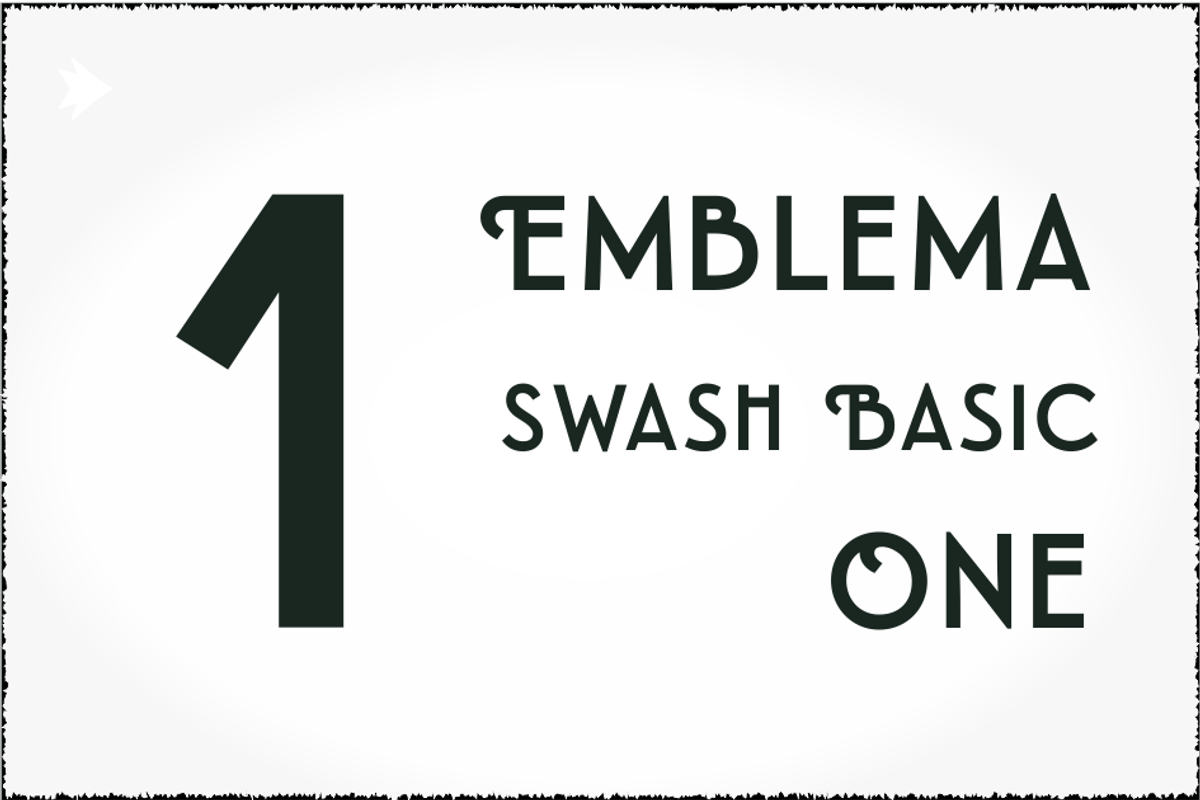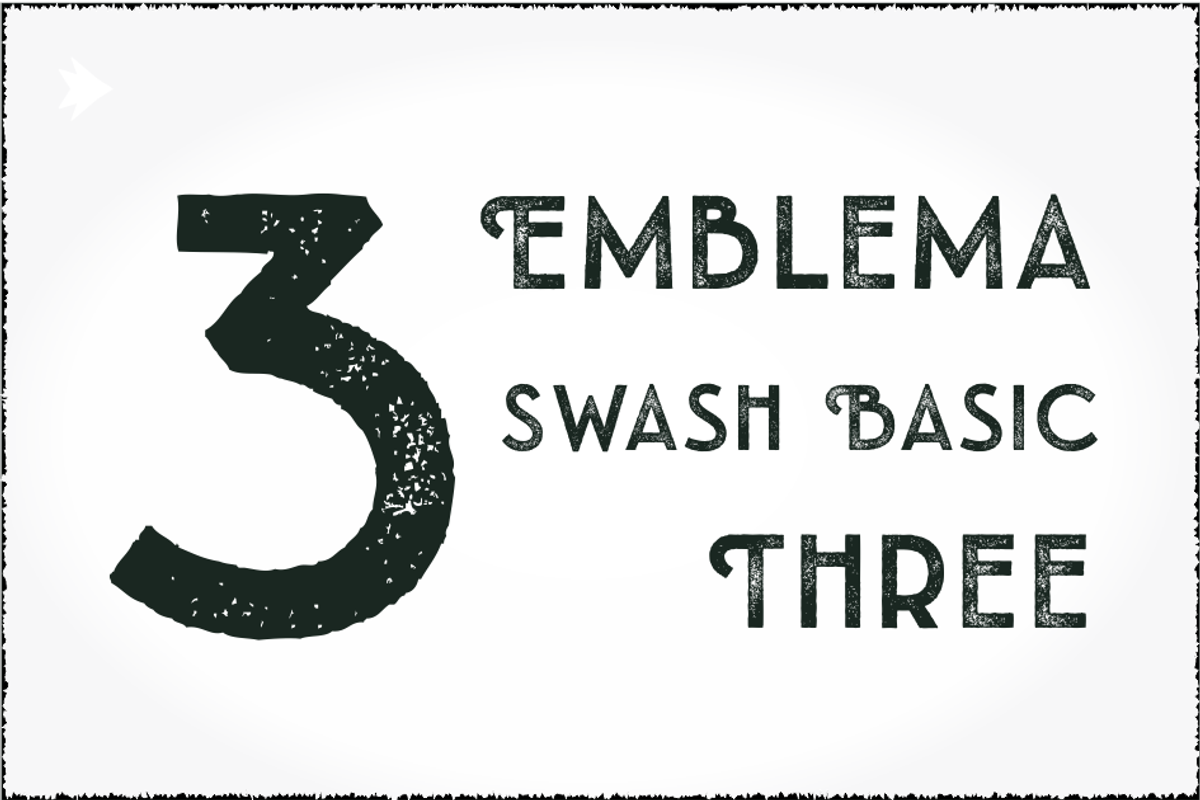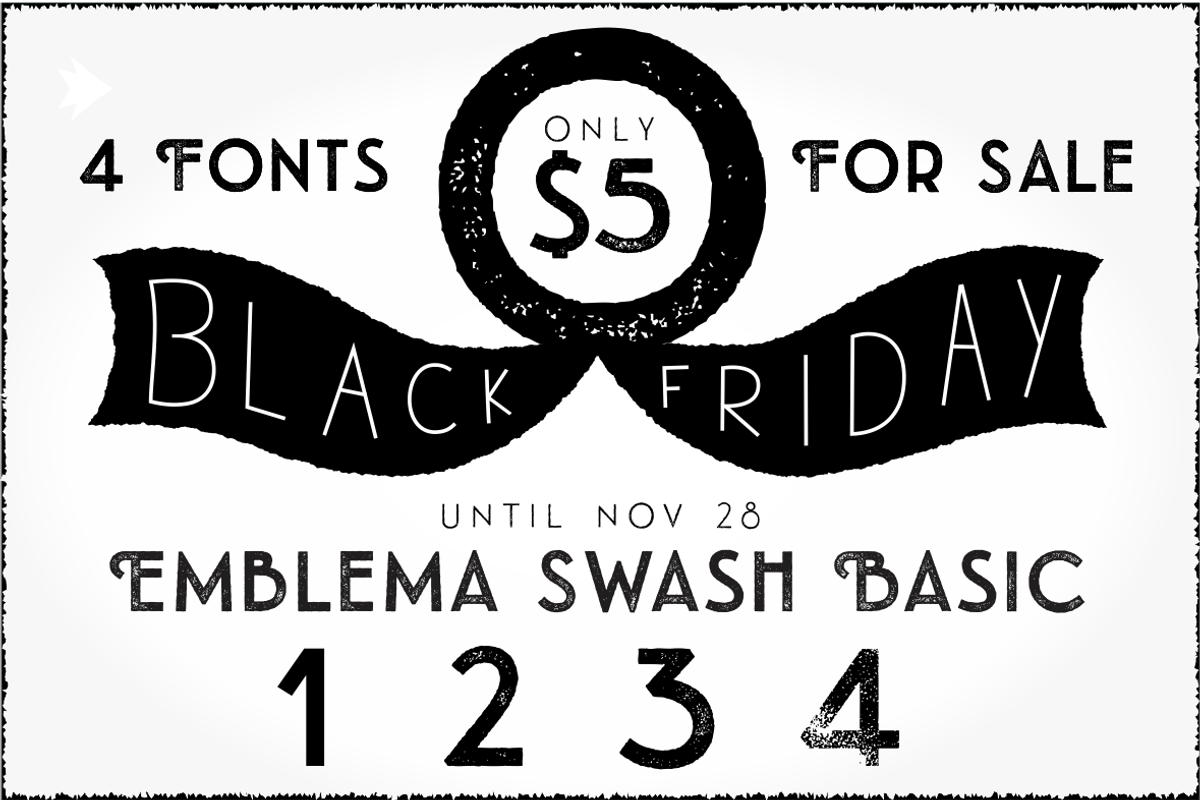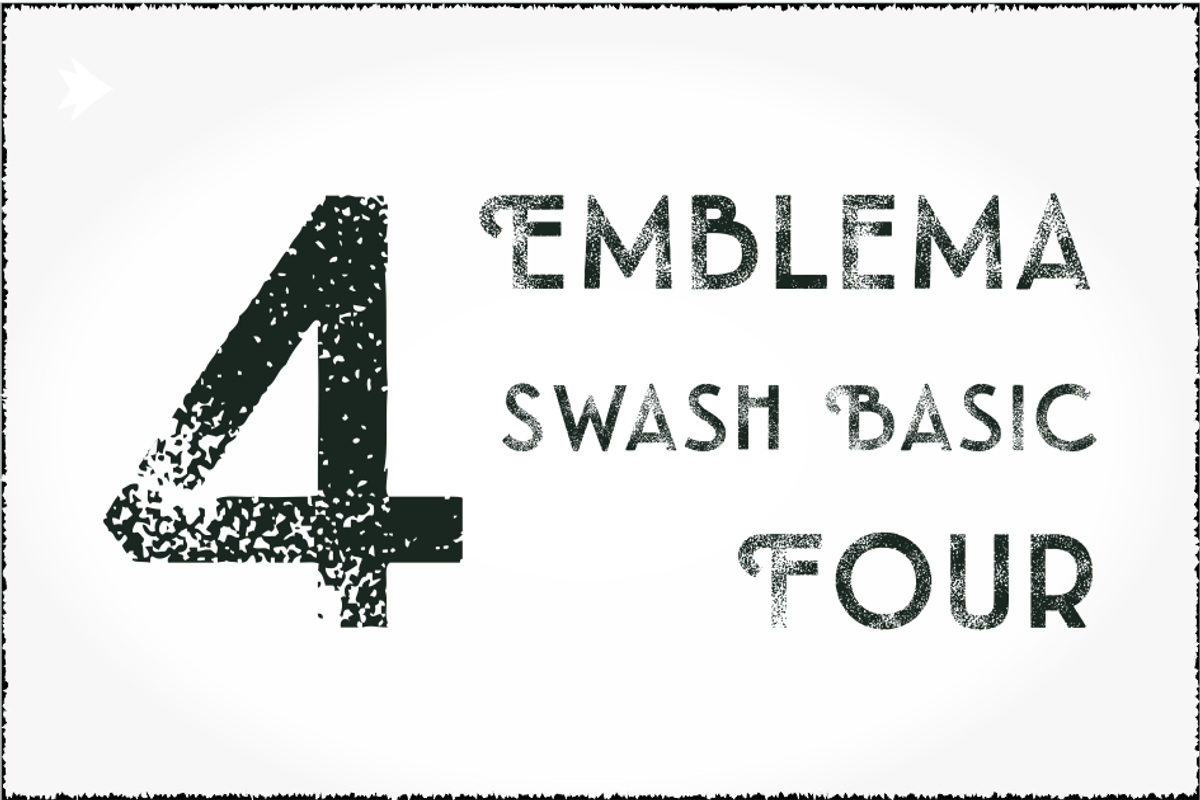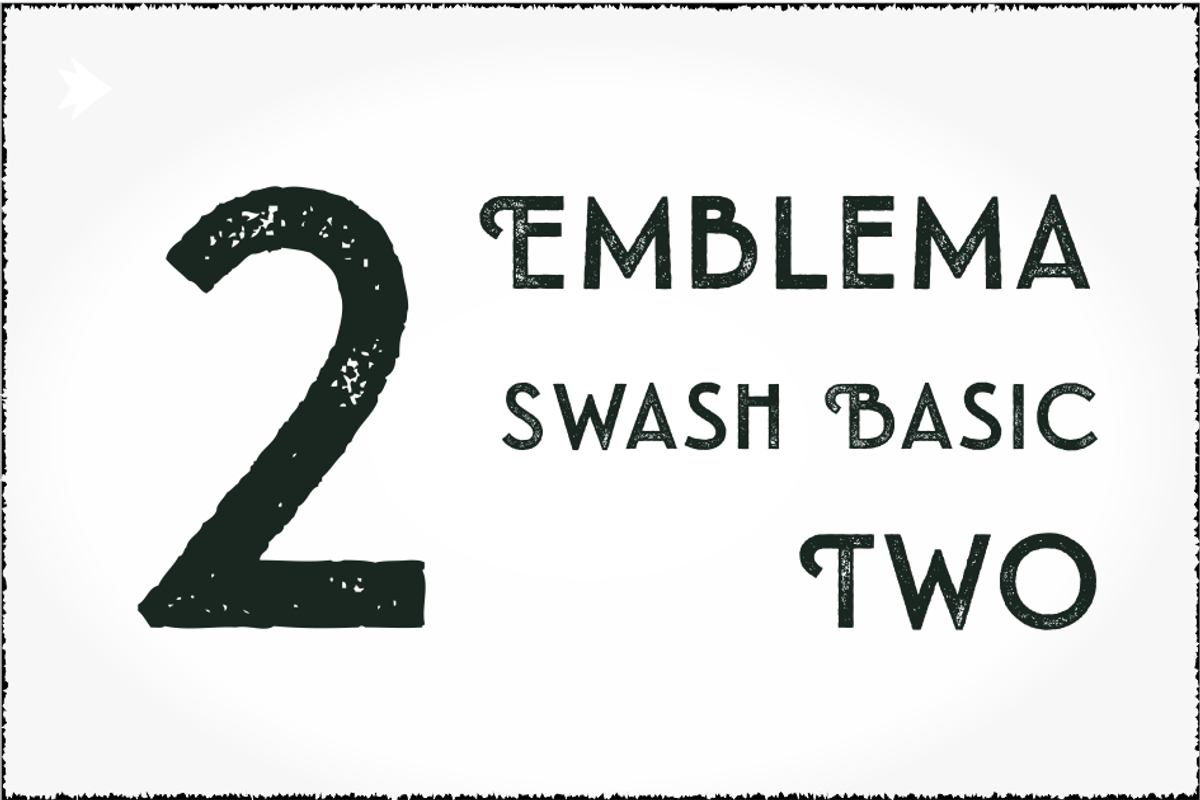
The typeface family various programming options, which offer; Deco stylistic alternatives Extraswash Swash both upper case and lower case, in addition to this family bind four decorative styles; Headline, Inline, Fill and Shadow these contain various antique effects which offer multiple options to be combined. By having each style a great advantage to design emblem with the font family as diversity is gratifyingly wide.